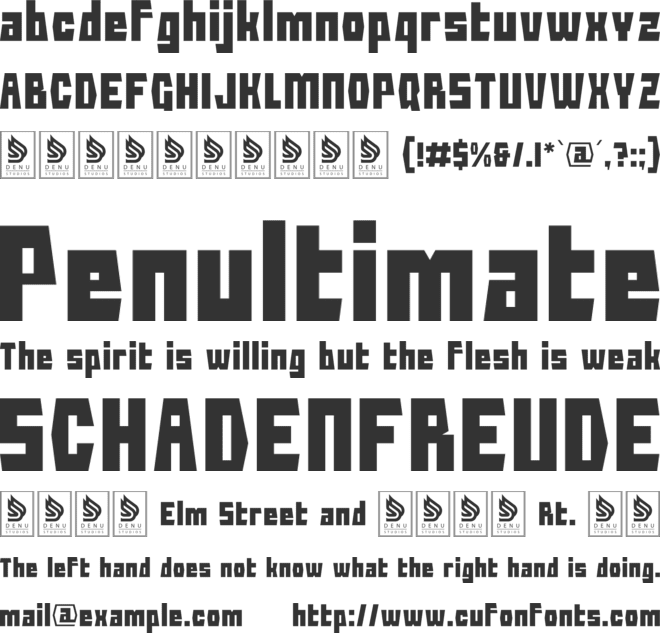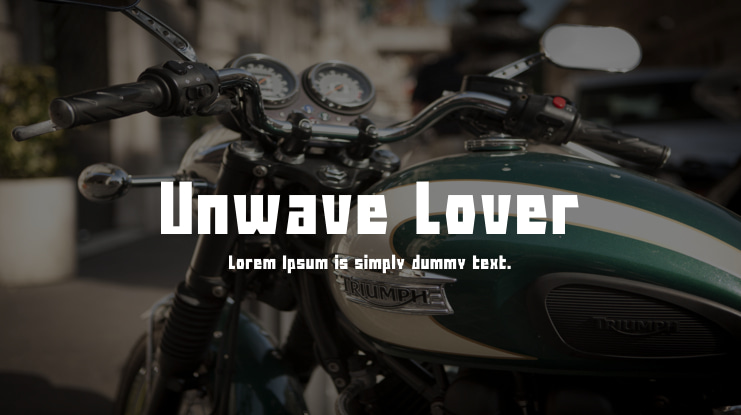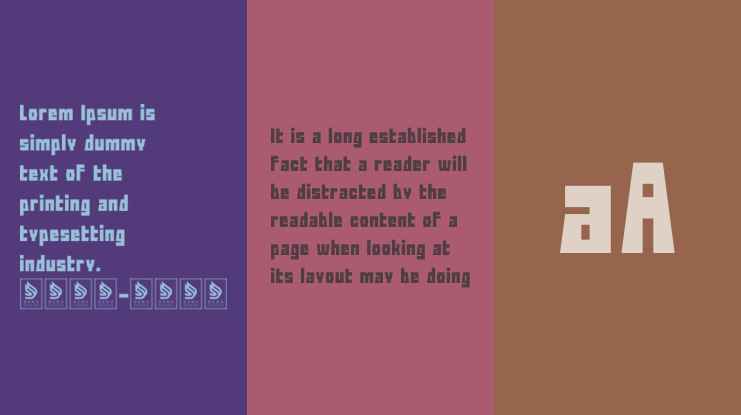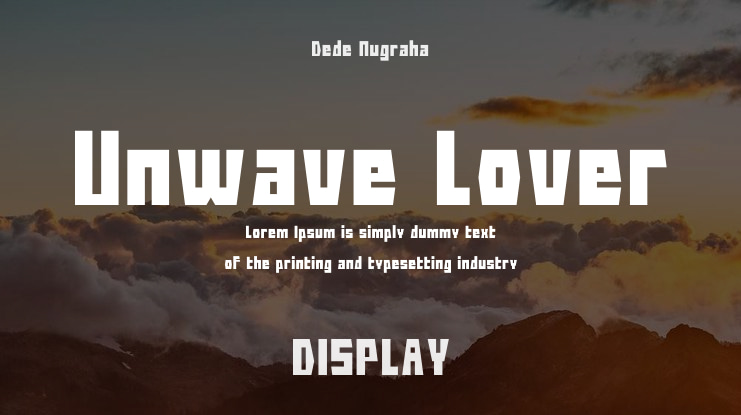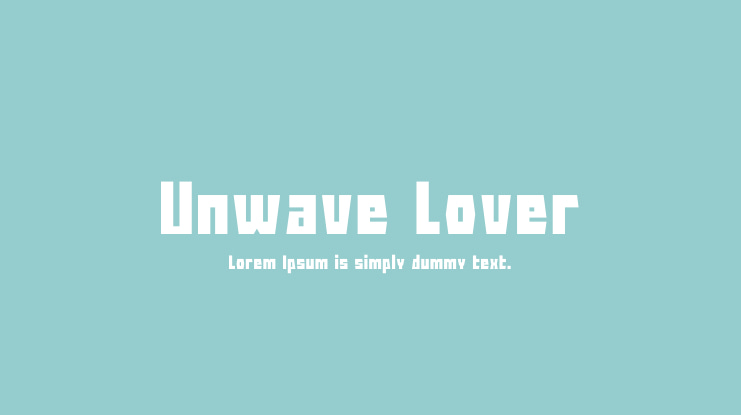
Dede Nugraha
**Unwave Lover | Display Sans Serif Font**
Unwave Lover Display Sans Serif is the perfect choice for a wide variety of projects, including:
- Logos - Branding Projects - Homeware Designs - Product Packaging - Mugs - Quotes - Posters - Shopping Bags - T-Shirts - Book Covers - Name Cards - Invitation Cards - Greeting Cards - Labels - Photography - Watermarks - Special Events
It's the ideal font for all your other projects that require a Display Sans Serif Font touch.